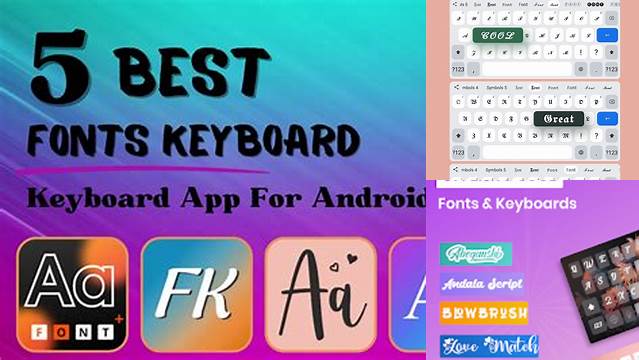
Stylish Fonts Keyboard: Best For Android
Hey guys! Ever get bored of the same old keyboard font on your Android? Want to spice up your texts and social media posts? Well, you're in the right place! We're diving deep into the best stylish fonts keyboards for Android that'll let you express yourself like never before. Get ready to transform your typing game!
1. Stylish Fonts Keyboard Apps: An Overview
Let's kick things off with an overview, shall we? The world of stylish fonts keyboards for Android is vast and exciting. These apps aren't just about changing fonts; they're about adding personality and flair to your digital communication. Think of it as giving your words a makeover! With a stylish fonts keyboard, you can easily switch between various fonts, from elegant scripts to bold, modern designs, all within your favorite messaging apps. This means your texts, social media posts, and even emails can reflect your unique style. Plus, many of these apps come packed with other cool features like emojis, GIFs, and themes, making your typing experience even more fun and engaging. So, if you’re looking to stand out from the crowd and add a touch of creativity to your everyday typing, exploring stylish fonts keyboards is definitely the way to go. You'll find a font that perfectly matches your mood and message in no time, trust me!
2. Top Free Stylish Fonts Keyboards for Android
Now, let’s talk about freebies! Who doesn’t love free stuff, right? There are tons of top free stylish fonts keyboards for Android that don't cost a penny but offer a fantastic range of fonts and features. These free apps often come with a solid selection of stylish fonts that can instantly jazz up your texts. You'll usually find a mix of basic fonts and some more creative options to play with. Don’t think that “free” means you’re missing out; many of these keyboards include extra goodies like emoji support, autocorrect, and even customizable themes. You can personalize your keyboard’s appearance without spending any money. Of course, some free apps might have ads or offer in-app purchases for additional fonts or features, but the core functionality is usually available for free. So, if you're on a budget but still want to add some pizzazz to your typing, checking out the top free stylish fonts keyboards for Android is a smart move. You might be surprised at just how many awesome options are out there!
3. Premium Stylish Fonts Keyboard Apps: Are They Worth It?
Okay, let's get down to the nitty-gritty: are premium stylish fonts keyboard apps worth the splurge? Well, it really depends on what you're looking for. Premium apps typically offer a wider range of fonts, often with more unique and high-quality designs. Think of it as upgrading from a basic wardrobe to a designer collection! Beyond fonts, premium keyboards often come with advanced features like cloud syncing, which lets you use your favorite fonts and settings across multiple devices. They might also offer more customization options, such as creating your own themes or adjusting keyboard size and layout. One of the biggest advantages of going premium is the ad-free experience. Nobody likes pesky ads popping up while they’re trying to type! Plus, premium apps often have better customer support and frequent updates with new fonts and features. So, if you're a font fanatic or someone who types a lot and values a smooth, feature-rich experience, investing in a premium stylish fonts keyboard app might just be the ticket. It’s all about weighing the cost against the value you’ll get out of it.
5. Customizing Your Stylish Fonts Keyboard
Okay, so you’ve got your stylish fonts keyboard up and running, but the real fun starts with customization! Most of these apps offer a ton of options to make your keyboard truly your own. First off, let's talk about fonts. Dive into the app's settings, and you'll usually find a font library where you can browse and select your favorites. Some keyboards let you download additional fonts, too, so you can keep your collection fresh. But it’s not just about fonts! Many stylish fonts keyboards allow you to customize the appearance of the keyboard itself. You can often change the theme, adjusting colors, backgrounds, and even the key styles. Some apps even let you use your own photos as a keyboard background – how cool is that? Beyond visuals, you can often tweak functional settings, like adjusting key height, enabling or disabling key sounds and vibrations, and setting up autocorrect and predictive text. Experiment with these settings to find what works best for your typing style. Customizing your keyboard is all about making it feel comfortable and look awesome, so don’t be afraid to play around and get creative!
6. Best Fonts for Different Occasions
Choosing the right font is like picking the perfect outfit – it sets the tone! A stylish fonts keyboard gives you the freedom to select fonts that match different moods and occasions. For casual chats with friends, you might want to use a fun, playful font like a handwritten script or a quirky sans-serif. These fonts add a friendly, informal vibe to your messages. When you're sending important emails or professional messages, a clean, classic font like Times New Roman or Arial might be a better choice. These fonts convey professionalism and clarity. If you're feeling creative, maybe for a social media post or a birthday message, you can go bold with a decorative or artistic font. Just remember not to overdo it – readability is key! Consider the context and your audience when selecting a font. A stylish fonts keyboard lets you express yourself in more ways than one, so use it to your advantage. Experiment with different fonts to see how they change the feeling of your words. Have fun with it, and let your fonts do the talking!
7. Stylish Fonts Keyboard and Social Media
Social media is all about expressing yourself, and a stylish fonts keyboard is your secret weapon! Think about it: your posts are vying for attention in a sea of text. A unique font can make your captions and comments stand out from the crowd. Imagine using an elegant script font for a heartfelt birthday message or a bold, eye-catching font for a promotional post. It's an easy way to add visual interest and personality to your content. Many stylish fonts keyboard apps integrate seamlessly with social media platforms like Instagram, Facebook, and Twitter. This means you can type directly in your chosen font without having to copy and paste from another app. Using different fonts can help you create a consistent brand aesthetic across your social media profiles. For example, if you run a business, you can use a specific font for all your posts to build brand recognition. Remember, though, readability is crucial. Choose fonts that are stylish but also easy to read on small screens. With a stylish fonts keyboard, you can elevate your social media game and make your words truly shine!
8. Fonts That Make Your Texts Pop
Want your texts to jump off the screen? A stylish fonts keyboard is your best friend! Certain fonts have that special something that makes your messages pop, grabbing attention and adding flair. Bold fonts, for example, are fantastic for emphasizing key words or phrases. They add a strong, assertive vibe to your texts. Script fonts, with their elegant curves and flourishes, can give your messages a touch of sophistication and personality. They’re perfect for adding a personal touch to greetings or thank-you notes. Sans-serif fonts, like Helvetica or Arial, are known for their clean, modern look. They’re great for conveying clarity and simplicity. Decorative fonts, with their unique shapes and styles, can add a playful or artistic touch to your messages. Use them sparingly to highlight specific words or phrases. When choosing a font, think about the message you want to convey. Do you want to be bold and confident, elegant and graceful, or fun and playful? A stylish fonts keyboard gives you the power to communicate not just with words, but with style!
9. Stylish Fonts Keyboard for Gaming
Gamers, listen up! A stylish fonts keyboard can add a whole new level of personalization to your gaming experience. Think about it: you're chatting with your teammates, trash-talking opponents, or sharing your victories in post-game lobbies. Why not do it with style? A unique font can help you express your personality and stand out from the crowd. Imagine using a futuristic, tech-inspired font for a sci-fi game or a bold, aggressive font for a competitive shooter. It’s all about setting the mood! Some stylish fonts keyboard apps even come with gaming-specific fonts designed to look cool and be easily readable in fast-paced gaming environments. Beyond aesthetics, a good gaming keyboard should be functional. Look for features like customizable key layouts, macro support (for executing complex commands with a single keypress), and anti-ghosting (ensuring all your key presses register, even when pressing multiple keys at once). A stylish fonts keyboard for gaming isn't just about looks; it's about enhancing your overall gaming experience.